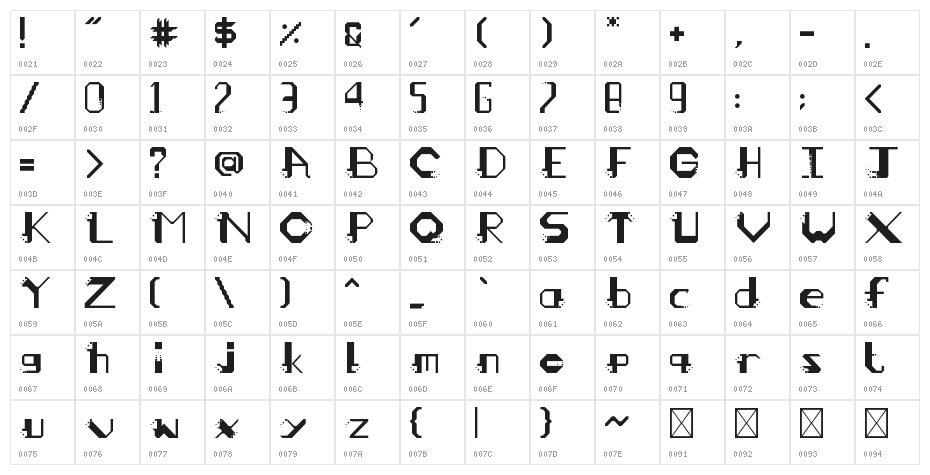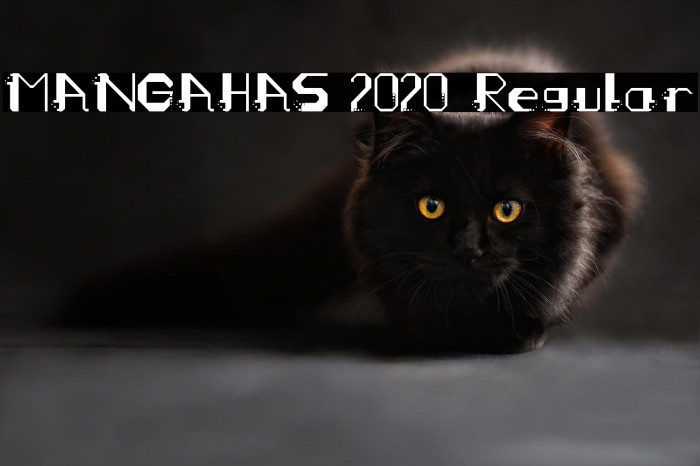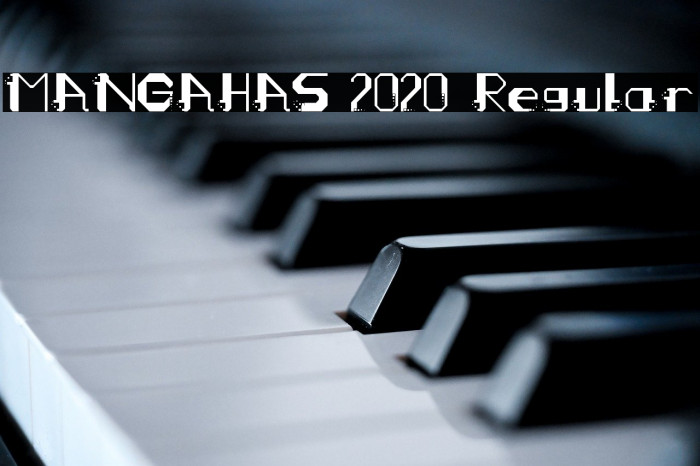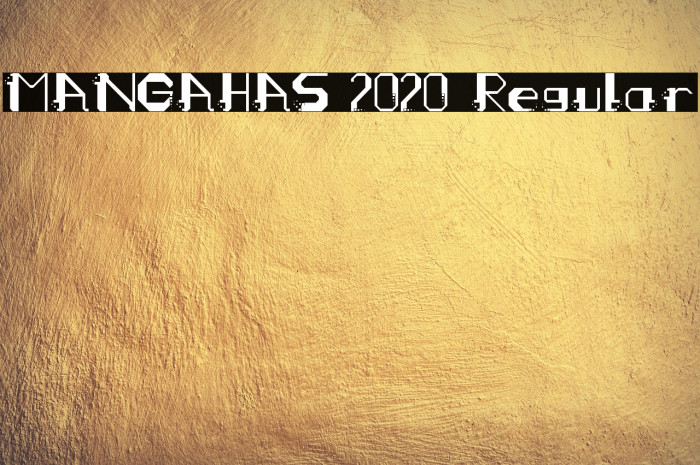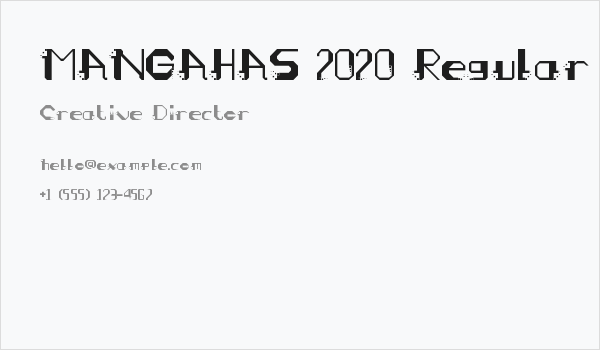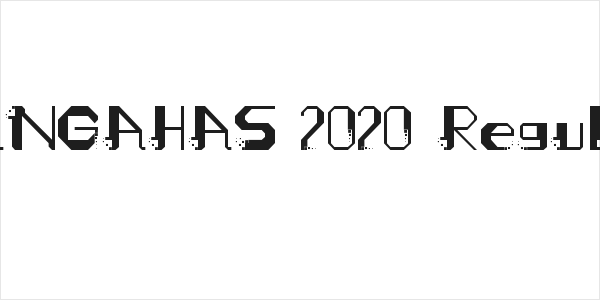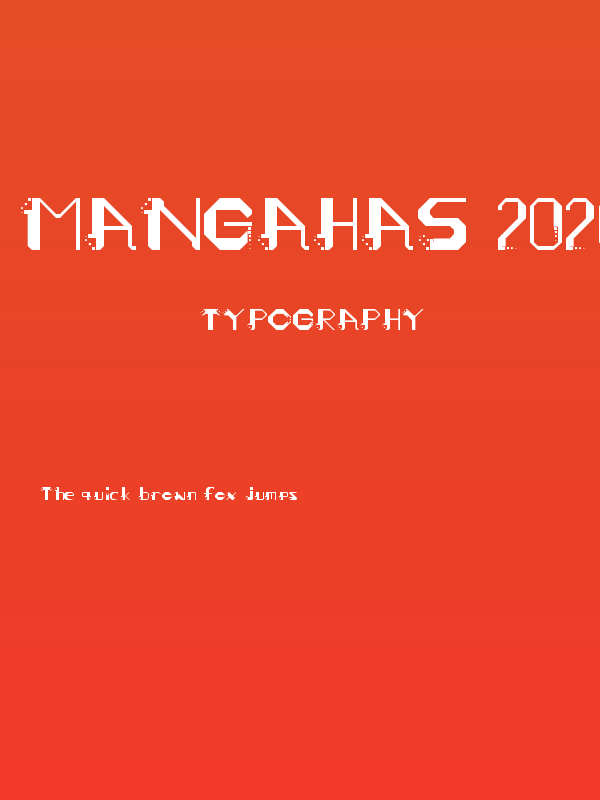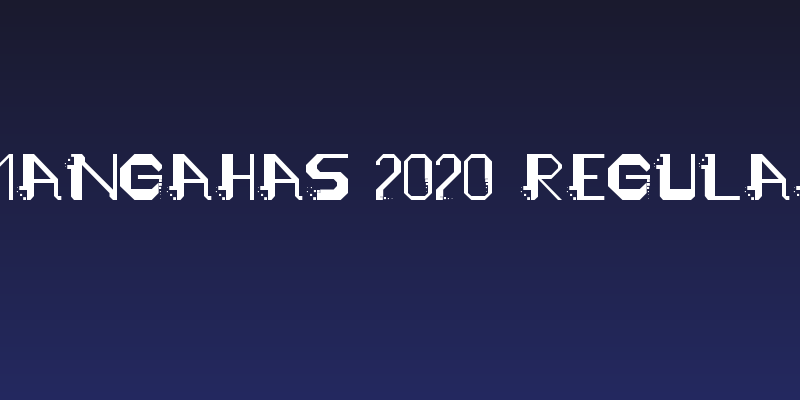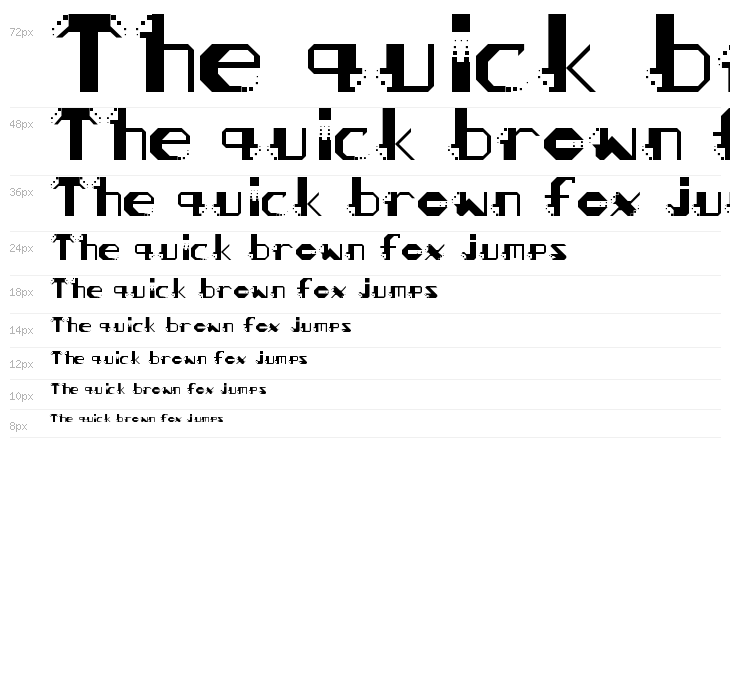
MANGAHAS 2020 Regular Font
MANGAHAS 2020 Regular Description
This font features a unique, modern design with a geometric and angular style. The characters are constructed with sharp edges and distinct cut-out sections, giving it a futuristic and digital appearance. The uppercase and lowercase letters maintain a consistent style, with a bold presence that stands out. The numbers and special characters follow the same design principles, ensuring uniformity across all glyphs. This font's distinctive look makes it suitable for projects that require a contemporary and edgy aesthetic.